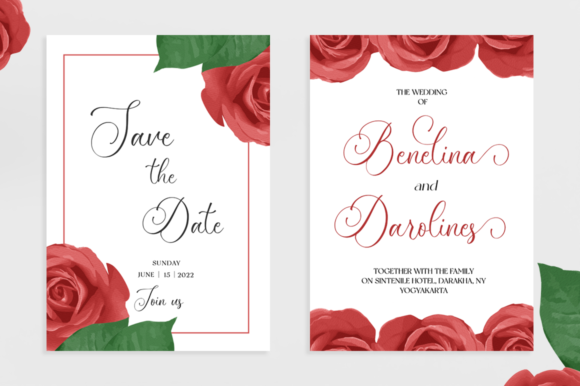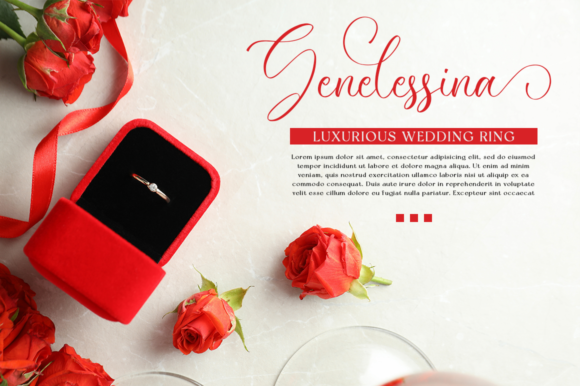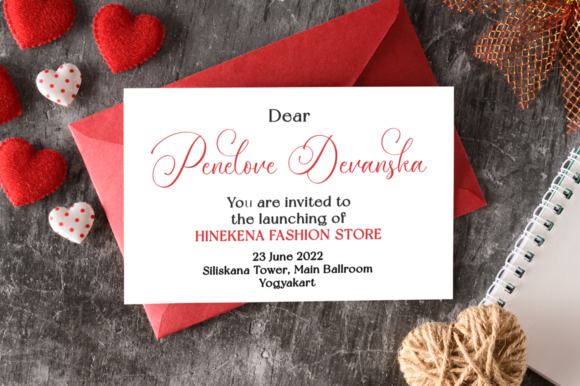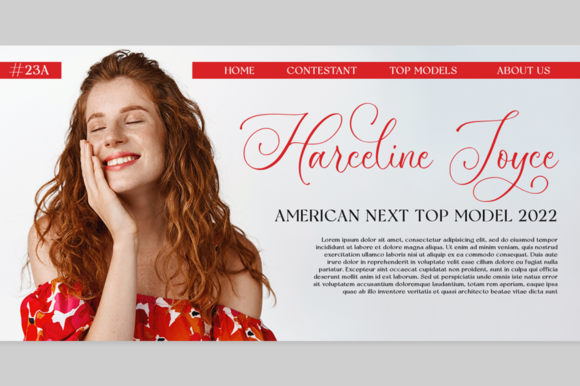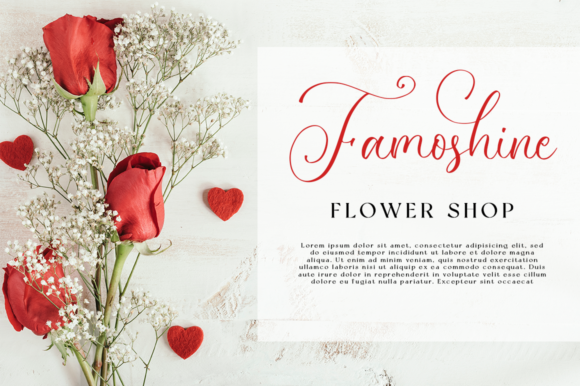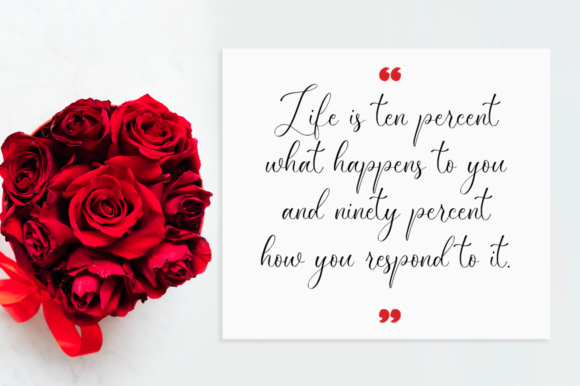
The Designer’s Delight: Unveiling the Elegance of Gandaria Font
I’ll never forget the moment I stumbled upon Gandaria Font while working on a wedding invitation project. My client wanted a design that exuded elegance and sophistication, but I was struggling to find the perfect font to match her vision. That’s when I discovered Gandaria, and it instantly became my go-to choice. In this article, I’ll share my experience with Gandaria, its features, and how to make the most of this beautiful script font.
An Honest Review of Gandaria Font
What I Love About Gandaria ✨
- ✨ Elegant and delicate script style that adds a touch of sophistication to any design
- ✅ Perfect for a variety of design projects, from wedding invitations to branding and packaging
While Gandaria is an excellent font, there are a few things to keep in mind:
- ⚠️ Some users may find the font a bit too delicate for certain design projects, such as posters or billboards
- 🤔 Limited availability of font weights, which may limit its use in certain design applications
The Backstory of Gandaria Font
Gandaria Font was designed with elegance and sophistication in mind. While the designer’s inspiration is not well-documented, it’s clear that they drew inspiration from classic script fonts and refined them with a modern twist. The result is a beautiful, delicate font that’s perfect for a variety of design applications.
| Font Name | Gandaria Font |
| Author | NissaStudio |
Q: What is PUA encoding, and how does it benefit Gandaria Font?
PUA (Private Use Area) encoding allows designers to access a wide range of glyphs and swashes, making it easier to customize and refine their designs.
Q: Is Gandaria Font suitable for body text?
While Gandaria is a beautiful font, it’s best suited for headlines and titles. Its delicate style may not be suitable for body text, especially at smaller font sizes.